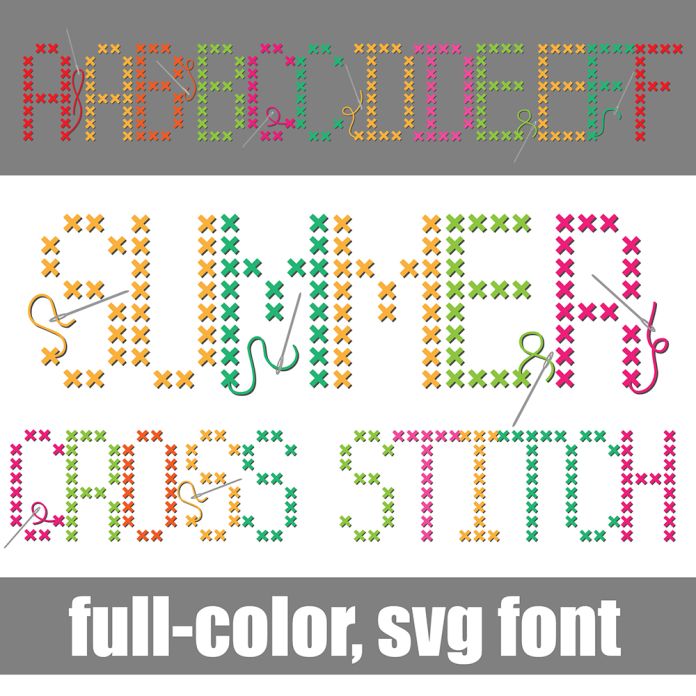
This full-color font looks like cross stitch with needles on the uppercase only. There is an alt case w/ additional colors you can access through your system or Silhouette's glyph map. This font works best for titles, displays, posters and more. Please note color fonts will show as black in non compatible programs. This font type is compatible with Silhouette Studio.